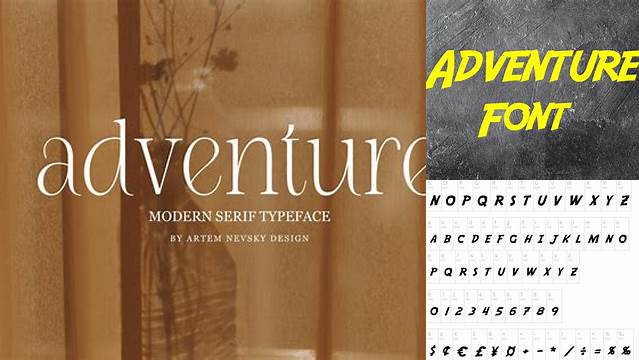
Adventure Fonts: Your Guide To DaFont's Best Typefaces
Hey guys! Are you ready to embark on a creative journey? If you're looking to add a touch of adventure to your designs, you've come to the right place. Today, we're diving into the world of adventure fonts available on DaFont, a treasure trove for designers and creatives. Finding the perfect font can be like discovering a hidden gem, and I'm here to help you navigate the vast landscape of typefaces to unearth the ideal font for your next project. From rugged and bold to elegant and whimsical, the possibilities are as limitless as your imagination. So, buckle up, and let's explore the exciting world of adventure fonts on DaFont!
What are Adventure Fonts?
So, what exactly makes a font an "adventure font"? Well, it's not a rigid category, but rather a feeling and style that these fonts evoke. Adventure fonts typically have a rugged, outdoorsy, or even fantastical feel. Think about the fonts you'd see on a movie poster for an epic quest, a book cover about exploring uncharted territories, or the logo of an outdoor gear company. These fonts often have a handcrafted or vintage aesthetic, giving them a sense of authenticity and timelessness. They might feature bold, thick strokes, distressed textures, or unique serifs and letterforms that hint at exploration and discovery. The goal of an adventure font is to transport the viewer to another world, to spark their imagination and ignite a sense of wanderlust. It is about choosing the correct typeface that perfectly complements your message and visual narrative. When searching for adventure fonts, consider the mood you want to create. Are you aiming for a rugged, survivalist vibe? Or perhaps a more whimsical, fairytale-esque feel? DaFont offers a vast selection of fonts that can cater to a diverse range of adventure themes, ensuring you find the perfect match for your project. The versatility of adventure fonts makes them suitable for many different design applications, from branding and logo design to posters, websites, and even apparel. By carefully selecting the right font, you can infuse your projects with a sense of excitement, mystery, and the thrill of the unknown.
Why Choose DaFont for Adventure Fonts?
Top Adventure Font Styles on DaFont
Let's dive into some of the top adventure font styles you can find on DaFont! When it comes to adventure fonts, there's no one-size-fits-all. The style you choose will depend heavily on the specific mood and theme you're aiming for. One popular style is the rustic or vintage font. These fonts often have a distressed or textured look, giving them a weathered and aged feel. They're perfect for projects that evoke a sense of history, exploration, or the great outdoors. Think about fonts that look like they could have been carved into wood or stamped onto an old map. Another common style is the bold and rugged font. These fonts are characterized by thick strokes, strong serifs (or a lack thereof), and a sense of power and stability. They're ideal for projects that need to convey strength, adventure, and resilience, such as logos for outdoor gear companies or titles for action-packed stories. Then there are the handwritten or script fonts that add a personal and adventurous touch. These fonts can range from elegant and flowing scripts to messy and informal handwriting styles. They're great for projects that want to convey a sense of authenticity, creativity, or a personal journey. If you're looking for something more whimsical, you might consider fantasy or fairytale-inspired fonts. These fonts often feature elaborate letterforms, unique flourishes, and a touch of magic. They're perfect for projects related to fantasy books, games, or anything with a fantastical theme. Finally, don't forget about sans-serif fonts. While they might not immediately scream "adventure," there are plenty of sans-serif fonts that can be used effectively in adventure-themed designs. Look for sans-serifs with a slightly geometric or industrial feel, or those with a bold and modern aesthetic. By understanding these different styles, you can better navigate the vast selection of adventure fonts on DaFont and find the perfect typeface for your project.
How to Find the Best Adventure Font on DaFont
Using Adventure Fonts in Your Designs
Once you've found the perfect adventure font, the next step is to use it effectively in your designs. Remember, a great font is only one piece of the puzzle; it's how you use it that truly matters. One key aspect is legibility. No matter how cool or adventurous a font looks, it's useless if people can't read it. Be mindful of the font size, spacing, and contrast with the background. In general, bold and rugged fonts work well for headlines and titles, while simpler fonts are better suited for body text. Think about the overall mood and tone of your design. An adventure font should complement the message you're trying to convey. A rustic font might be perfect for a vintage-inspired travel poster, while a bold sans-serif could work well for a modern outdoor gear brand. Consider the font pairing as well. Mixing and matching fonts can add visual interest to your design, but it's important to do it carefully. A good rule of thumb is to pair an adventure font with a more neutral font for body text. This helps to balance the design and ensure readability. Don't be afraid to experiment with different font combinations until you find something that works. Another important factor is the context in which the font will be used. Will it be on a website, a poster, a logo, or something else? The ideal font choice may vary depending on the medium. For example, a font that looks great on a large poster might not be as effective on a small screen. Think about the color palette of your design as well. Certain fonts may look better with certain colors. For example, a distressed font might pair well with earthy tones, while a bold font could work well with bright, vibrant colors. Finally, remember that less is often more. Don't overload your design with too many different fonts. Stick to a maximum of two or three fonts to maintain a cohesive and professional look. By keeping these tips in mind, you can use adventure fonts effectively to create stunning and memorable designs that capture the spirit of exploration and adventure.
Examples of Adventure Font Projects
To get your creative juices flowing, let's look at some examples of projects where adventure fonts can really shine. Think about logos and branding for outdoor and adventure-related businesses. A rustic, hand-drawn font could be perfect for a hiking guide service, while a bold, geometric sans-serif might be a great fit for a modern climbing gear company. The font can instantly convey the brand's personality and target audience. Book covers are another fantastic opportunity for adventure fonts. Imagine a fantasy novel with a title rendered in an elaborate, fairytale-inspired font, or a historical adventure story with a title in a classic serif font. The font can help to set the tone and genre of the book at a glance. Posters and flyers for travel destinations or adventure events are also a great place to use adventure fonts. A vintage-style font could evoke the golden age of travel, while a bold, distressed font might be ideal for promoting a rugged outdoor expedition. Website design can also benefit from the use of adventure fonts, especially for sites related to travel, outdoor activities, or storytelling. A well-chosen font can enhance the visual appeal of the site and create a sense of immersion for the user. Game design is another area where adventure fonts can really shine. From fantasy RPGs to action-adventure games, the right font can help to create a sense of atmosphere and excitement. Apparel design, such as t-shirts and hoodies, can also incorporate adventure fonts to add a touch of personality and style. A bold, eye-catching font can make a statement and appeal to adventure-seeking individuals. Finally, consider using adventure fonts in personal projects, such as travel journals, scrapbooks, or even social media graphics. A well-chosen font can add a personal touch and make your creations stand out. These are just a few examples, and the possibilities are truly endless. By thinking creatively and experimenting with different font styles, you can find countless ways to incorporate adventure fonts into your projects and bring your visions to life.
Conclusion: Embrace the Adventure in Typography
So, there you have it, guys! A comprehensive guide to finding and using adventure fonts on DaFont. I hope this exploration has inspired you to embrace the adventure in typography and to use fonts as a powerful tool for storytelling and visual communication. Remember, the perfect font can transform a design from ordinary to extraordinary, adding a touch of personality, excitement, and the thrill of the unknown. DaFont is a fantastic resource for finding a wide variety of adventure fonts, but it's just the starting point. Don't be afraid to explore other font foundries and websites to discover even more hidden gems. The key is to understand your project's needs, define the mood you want to create, and then experiment with different fonts until you find the perfect match. Typography is an art form in itself, and the choices you make can have a profound impact on the overall design. So, take your time, be creative, and have fun with it! Whether you're designing a logo, a book cover, a website, or a poster, adventure fonts can help you to capture the spirit of exploration and bring your creative visions to life. So, go forth, explore, and let your typography tell a story! And always remember to check those font licenses! Now go make some awesome designs, guys!